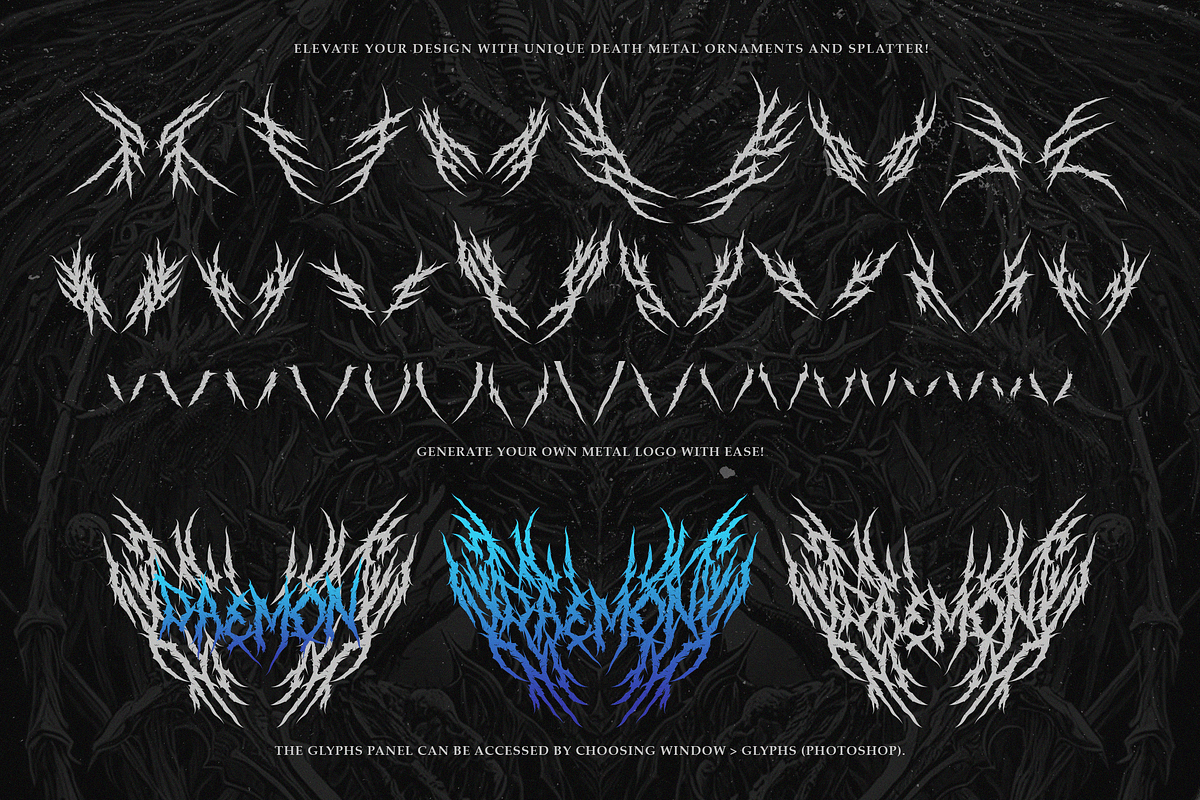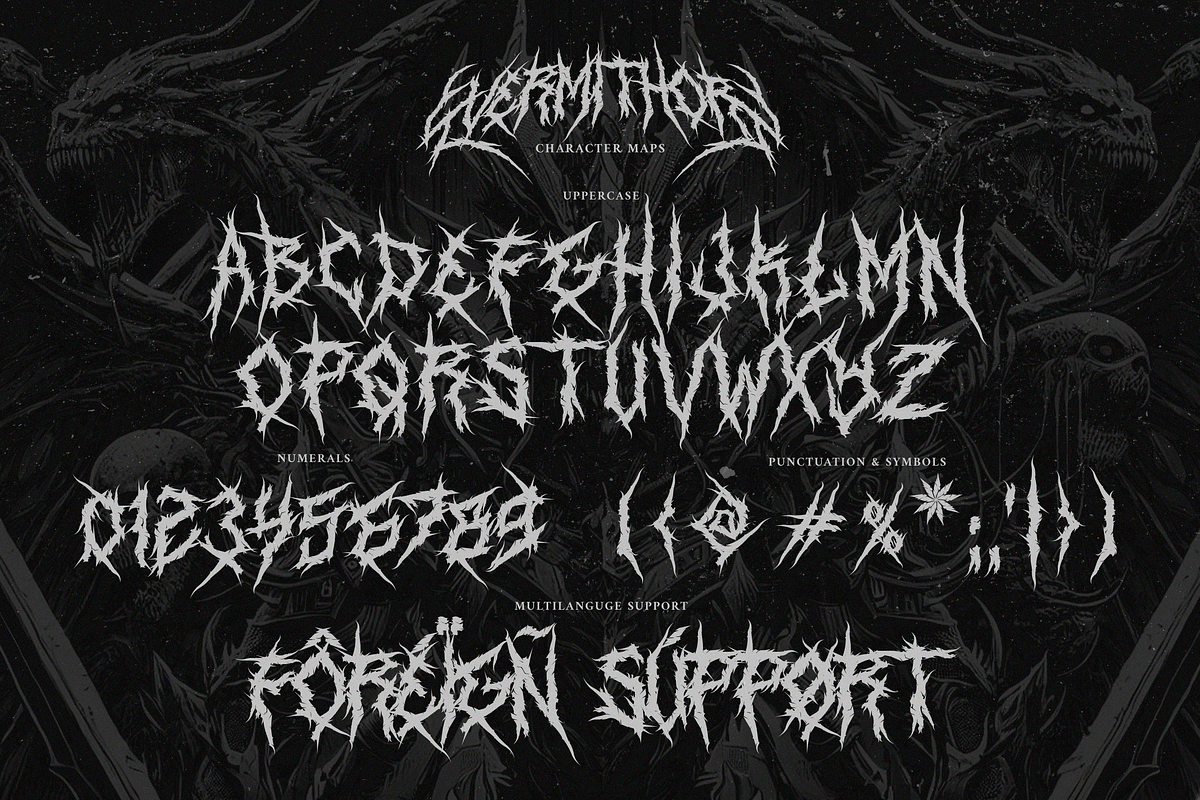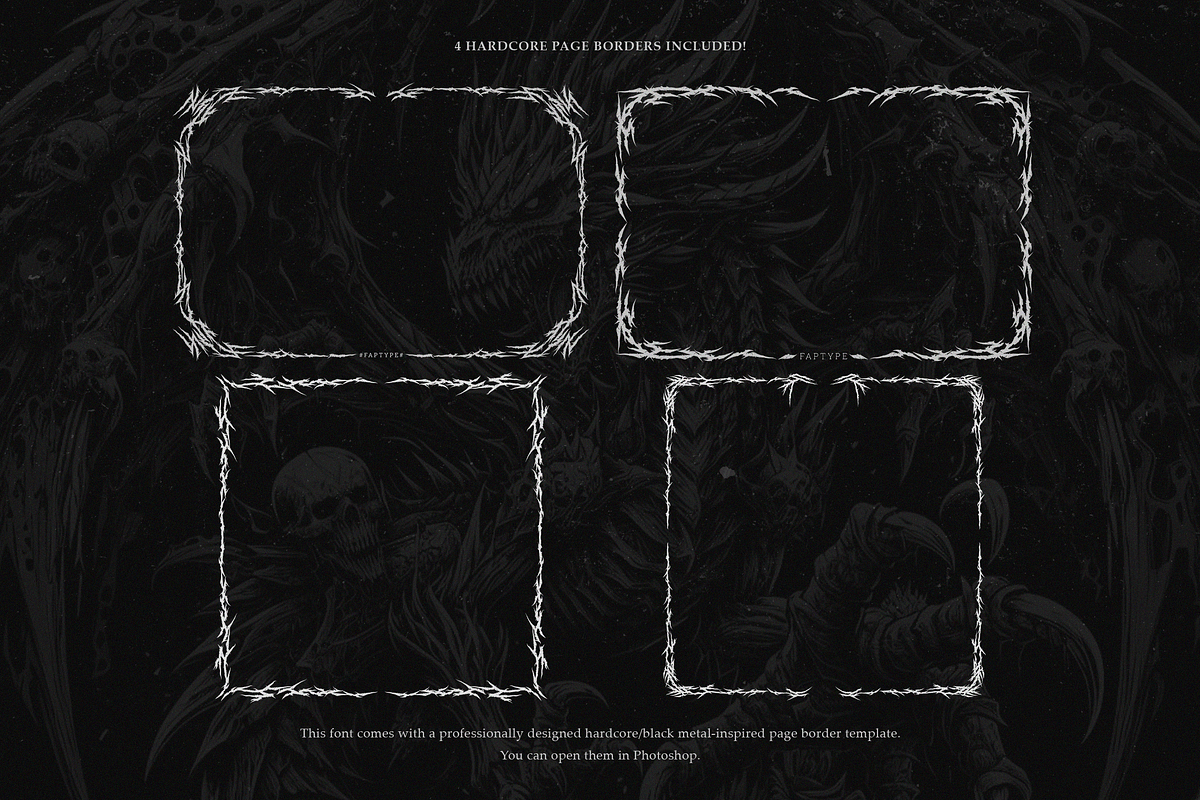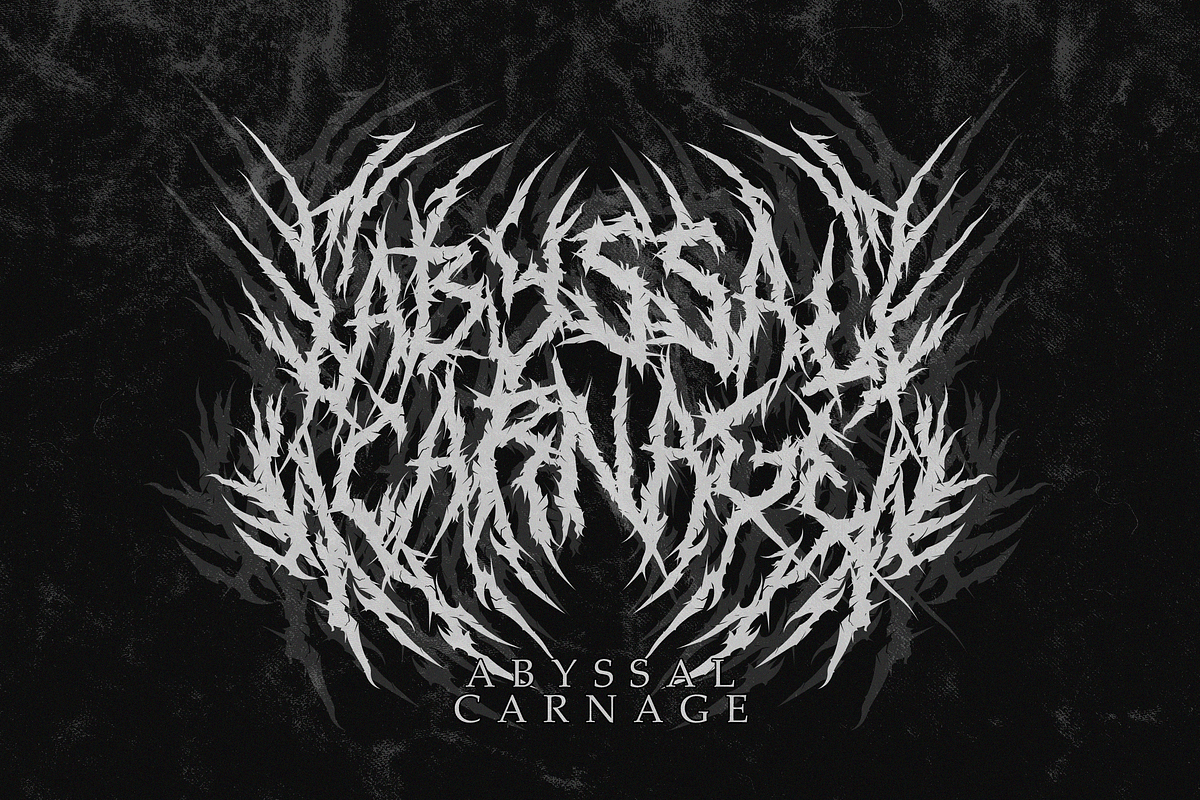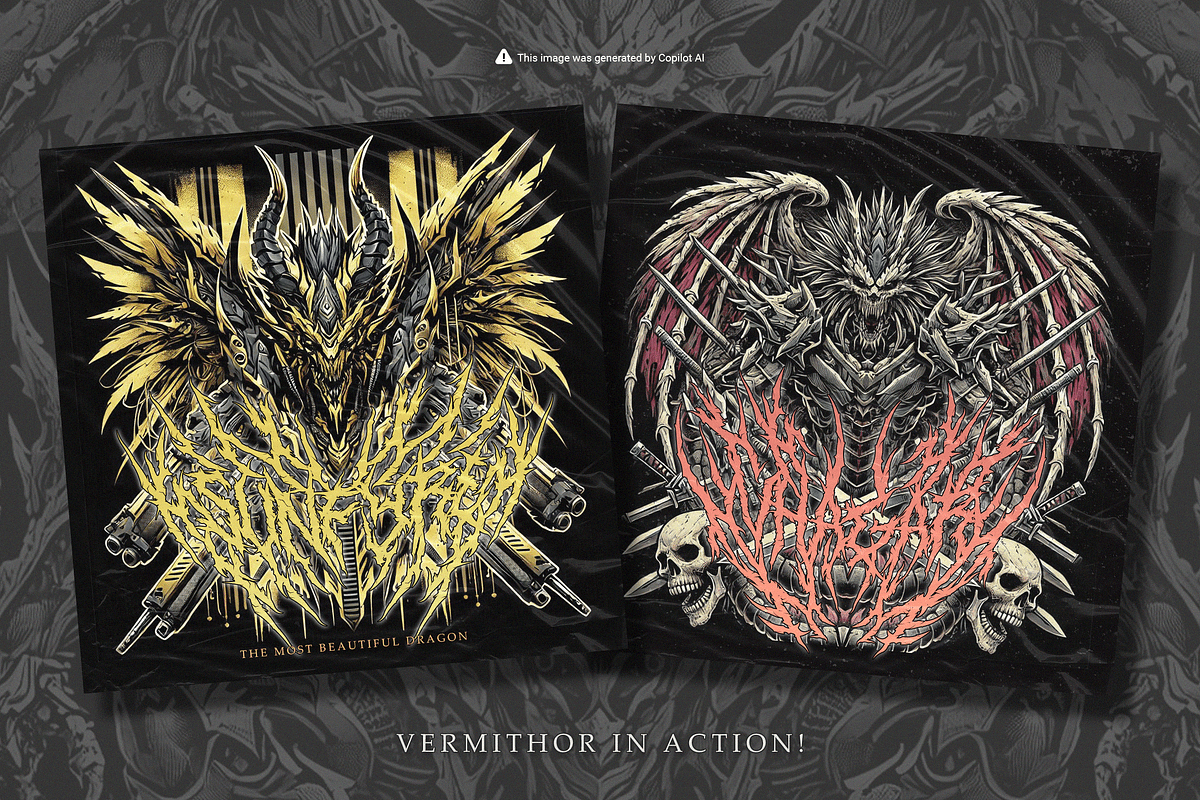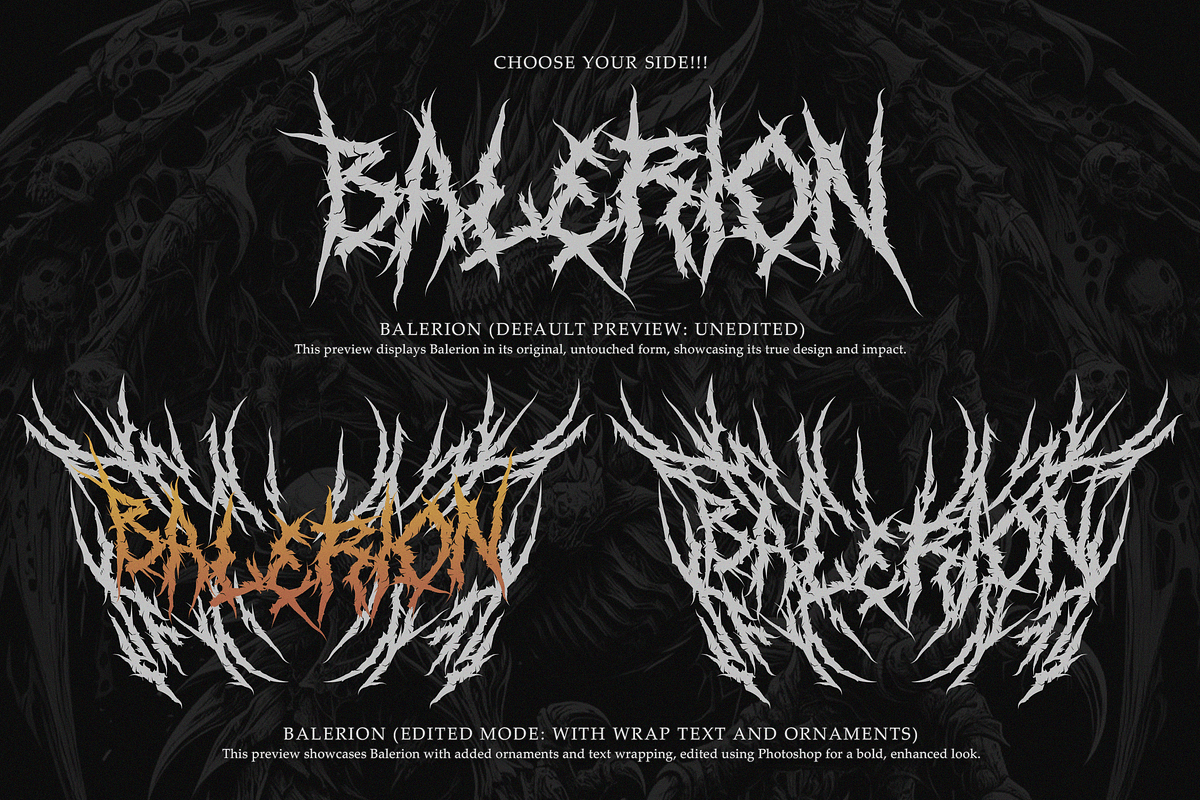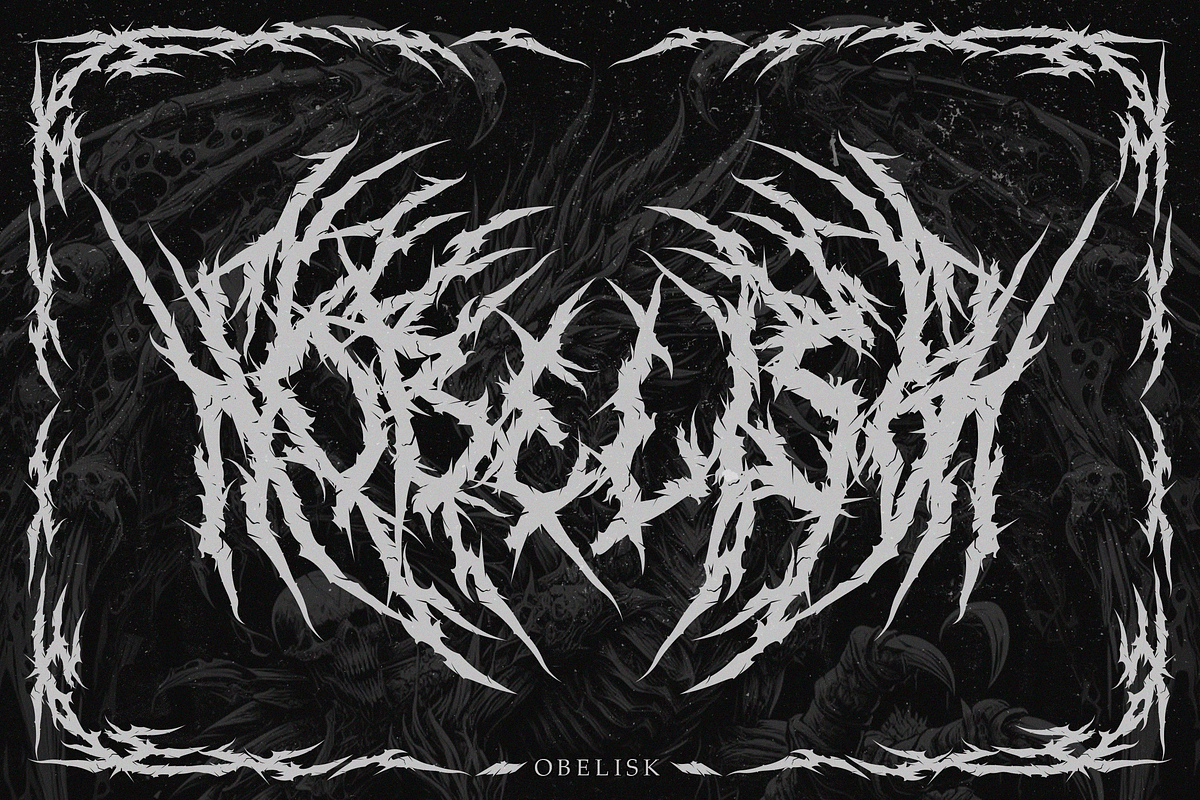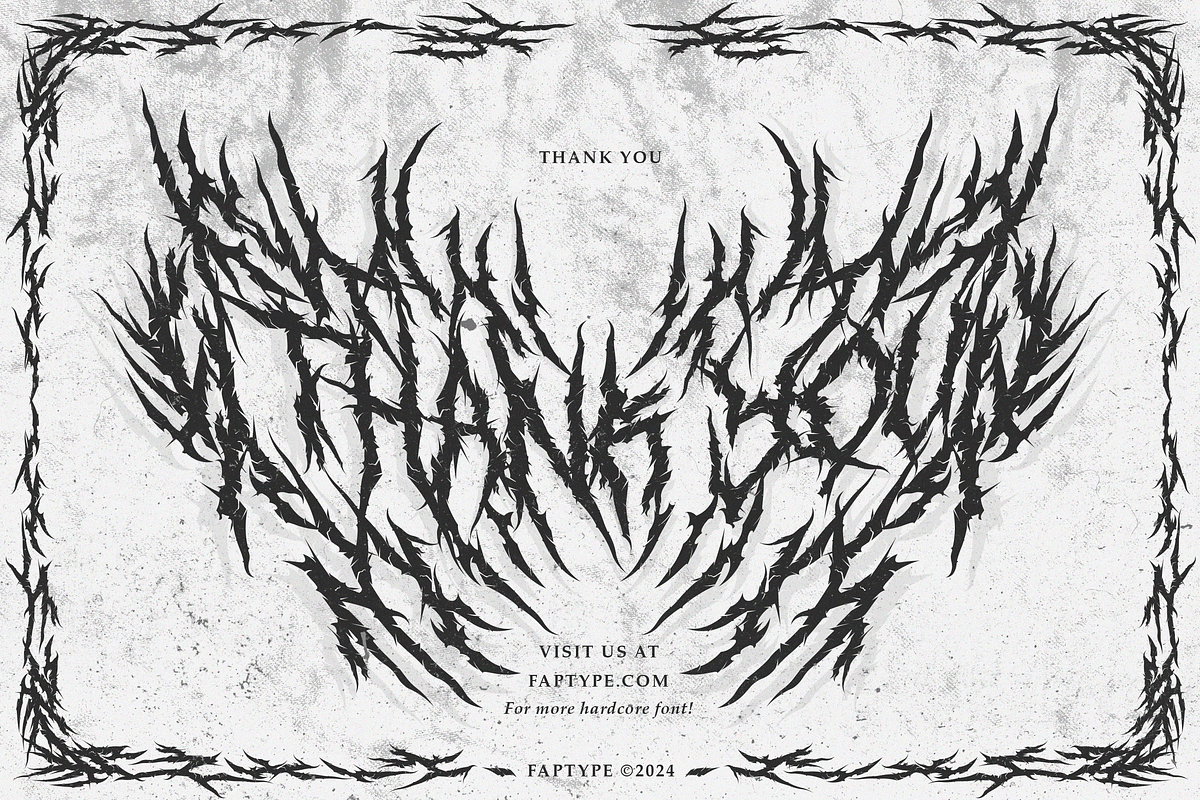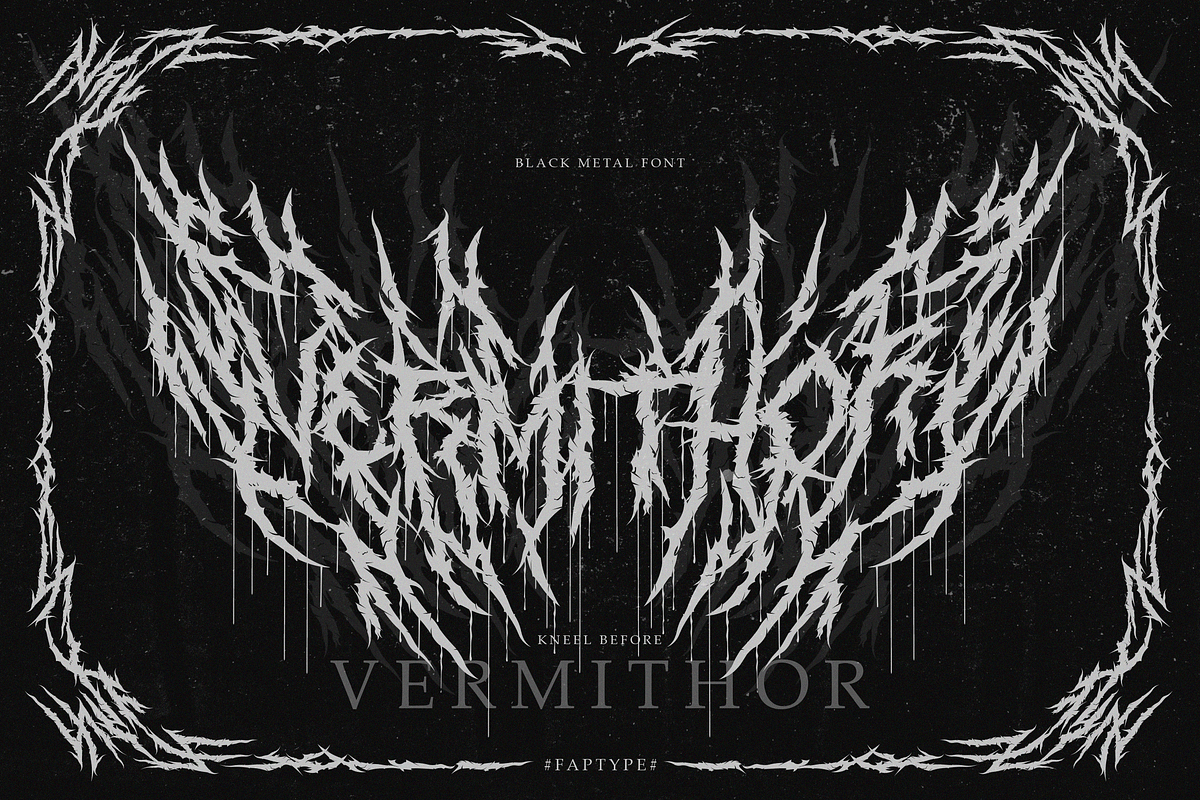
Vermithor | Fierce Black Metal Font
Unleash the raw power and dark allure of Vermithor, our brand-new death metal font designed to embody the ferocity and chaos of the genre. With its sharp edges, jagged strokes, and brutal aesthetic, Vermithor commands attention, evoking the visceral intensity of extreme metal. This font is crafted to make your designs stand out, whether you're creating album covers, band logos, posters, or merch that demands a bold, unrelenting presence.
Inspired by the dark legends of death metal and infused with a sophisticated edge, Vermithor strikes the perfect balance between brutality and refinement. Its intricate design captures the spirit of rebellion, power, and raw energy that defines the genre, making it an essential tool for artists and creators looking to channel the dark arts into their visuals.
Bonus Content: To elevate your designs even further, Vermithor includes 4 exclusive Black Metal Page Border Templates. These Photoshop-ready templates feature intricate, hardcore-inspired artwork, perfect for framing your text or creating fully immersive compositions.
Whether you're crafting promotional materials, event posters, or personal projects, Vermithor and its bonus templates offer unmatched versatility and style. Make your mark in the metal scene with Vermithor—a font that screams power, rebellion, and artistry in every letter.
Vermithor Features:
- A full set of Uppercase
- Numbers and Punctuation
- Multilingual Language Support
- OpenType Features
- +353 Total Glyphs
- +120 Death Metal Ornaments and Splatter included!